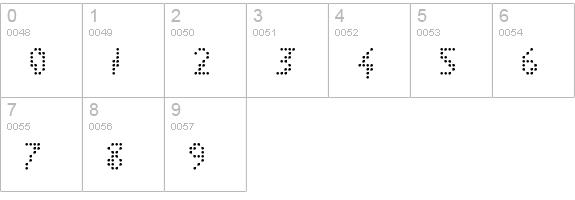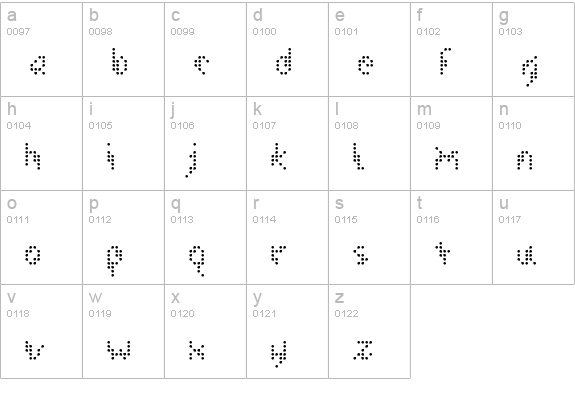
[.flak-disfunktion.] Font Details
The [.flak-disfunktion.] font is a bold and dynamic typeface that exudes energy and creativity. Its edgy design and unique letterforms make it perfect for projects that require a modern and eye-catching look. This font is versatile and can be used for a variety of purposes, from branding to editorial design. What sets [.flak-disfunktion.] apart is not only its striking aesthetics but also the fact that it is free to download at FontsMarket.com. This means that you can access this stylish font without any cost, making it a valuable addition to your design toolkit. Whether you're working on a poster, website, or any other creative project, [.flak-disfunktion.] is sure to make a bold statement and leave a lasting impression on your audience. Download this font today and elevate your designs with its modern flair and visual impact.